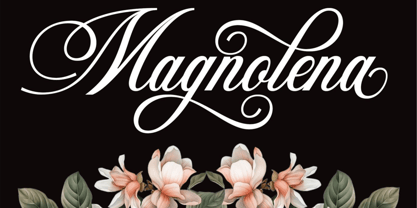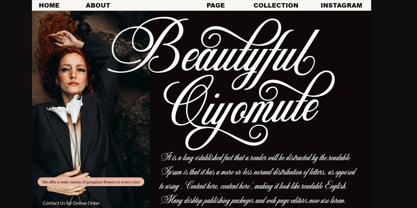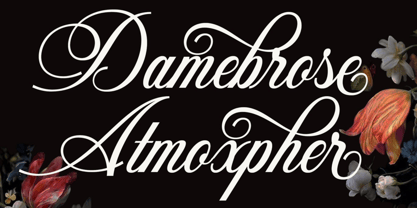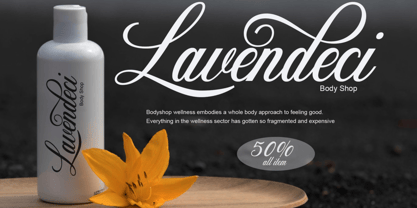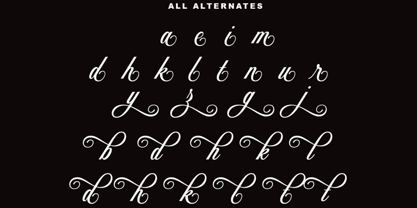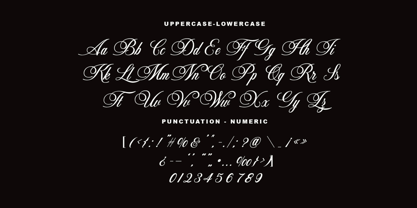
Meglae
by Hasnat Studio
The Meglae Font Family was designed by Hasnat Khan and published by Hasnat Studio. Meglae contains 1 styles. More about this family
Meglae is a beautifully crafted handwritten font that brings warmth, personality, and effortless style to your creative work. With smooth curves and fluid strokes, Meglae captures the authenticity of real handwriting, making it ideal for projects that need a human touch.
Perfect for both print and digital media, Meglae adds charm and legibility to everything from personal branding to editorial designs.
Font Features:
• Uppercase & lowercase letters
• Numerals & punctuation
• Functional ligatures
• Multilingual language support
• Stylistic alternates for creative customization
Meglae brings an expressive handwritten feel to your projects—perfect for designers who want their typography to feel heartfelt, elegant, and unique.
Designers: Hasnat Khan
Foundry: Hasnat Studio